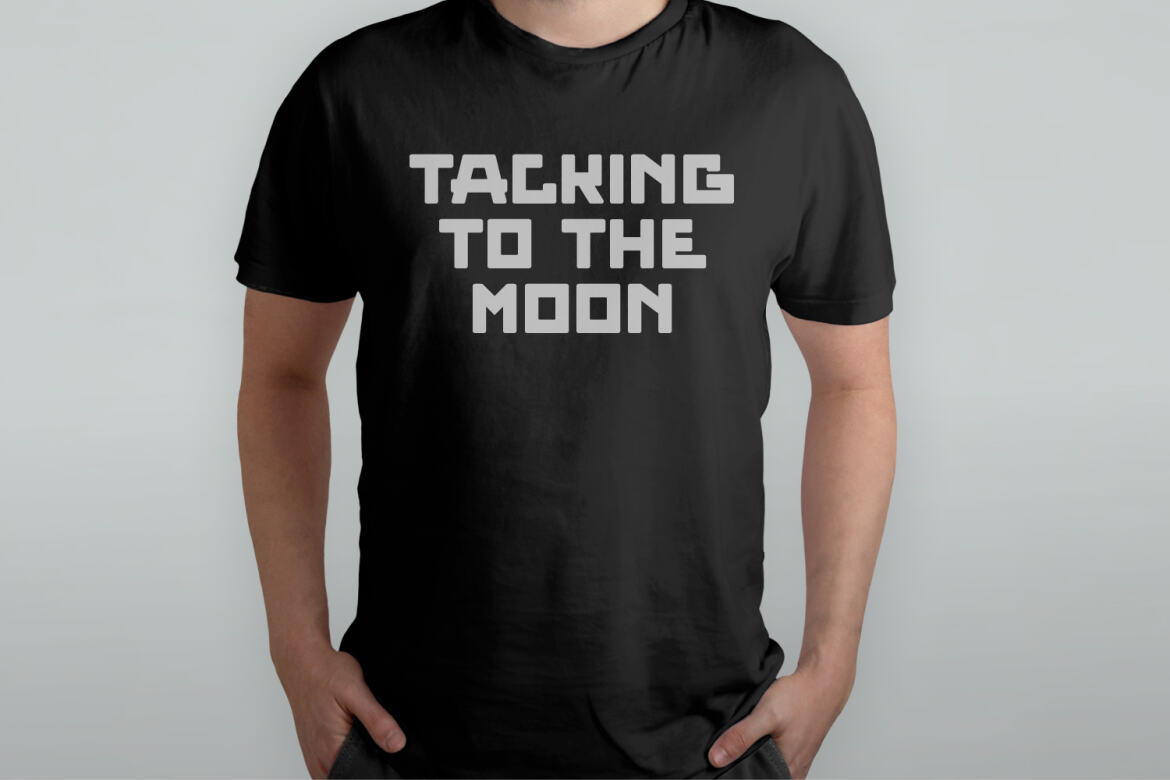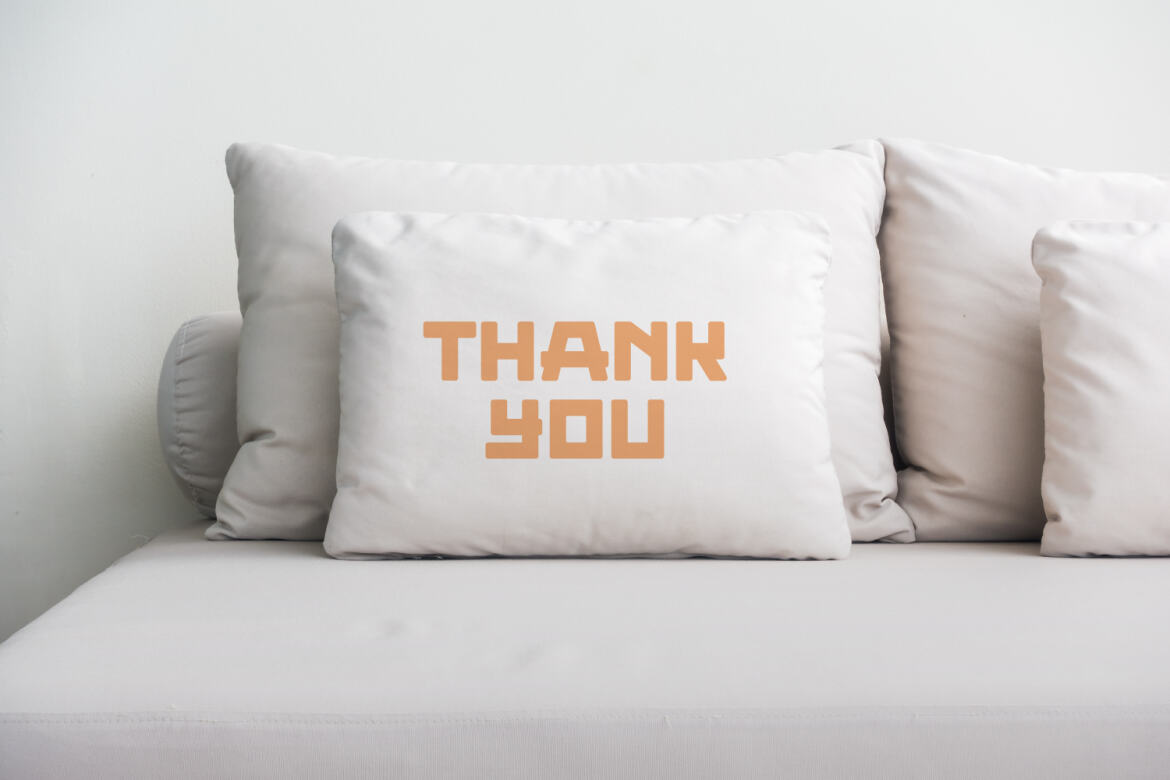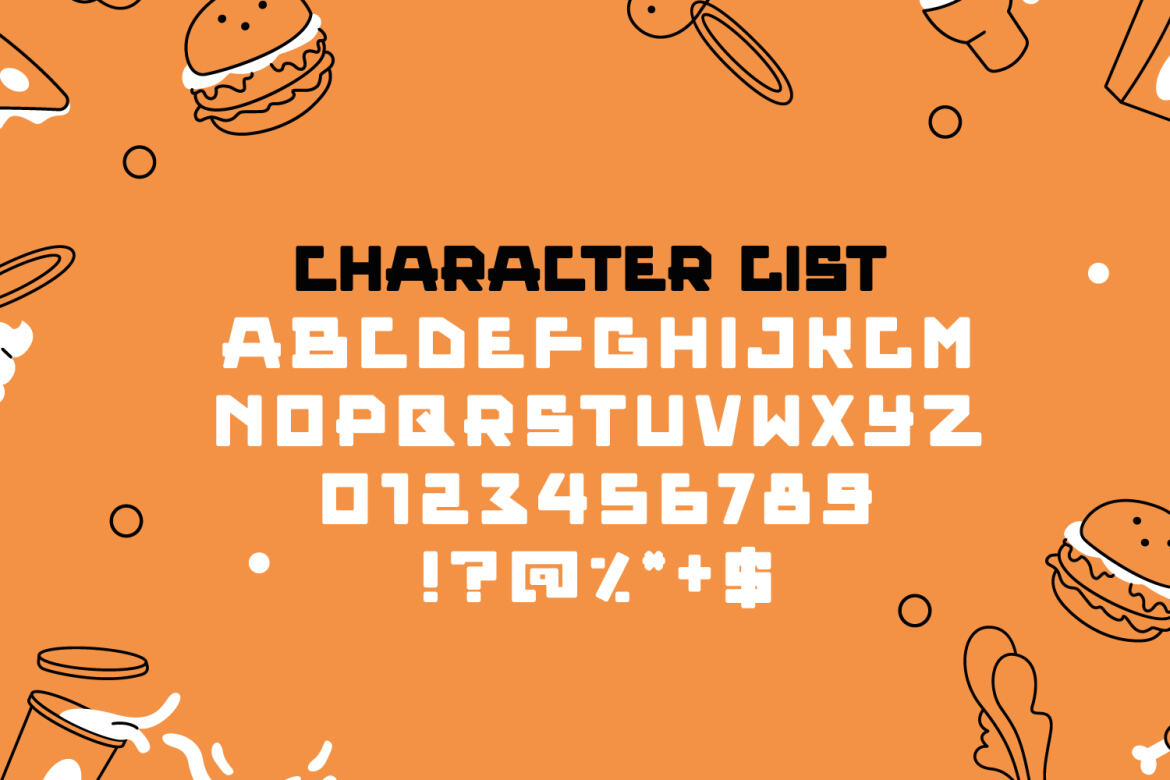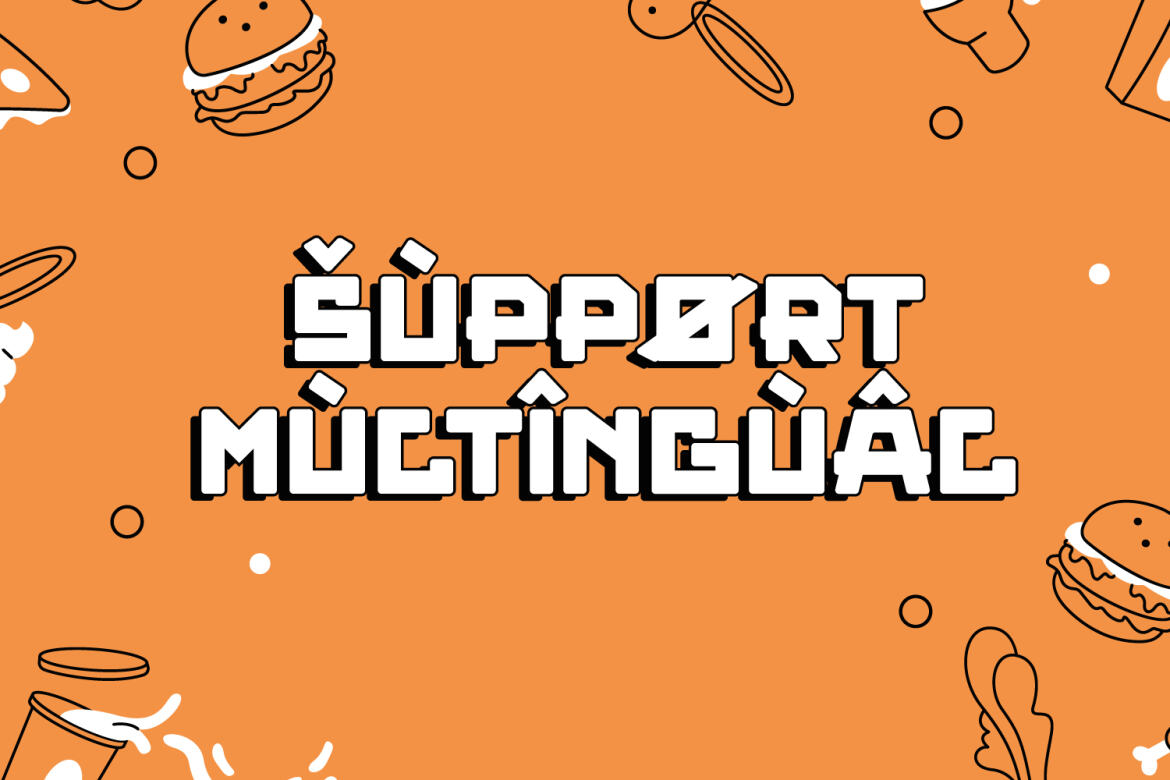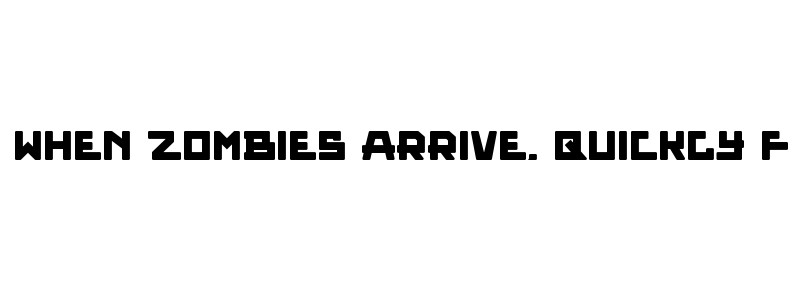
Break Fast - FREE Unique Style Font
Break Fast - Unique Style Font
Break Fast is a quirky and cute display font that fits perfectly into anything. Its casual charm makes it look very down to earth, easy to read and, in the end, very versatile.Add this beautiful display font to your every creative idea.